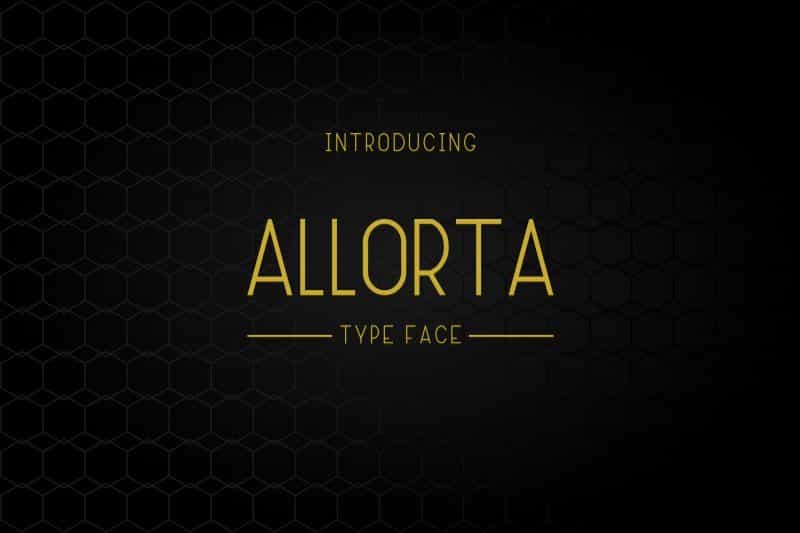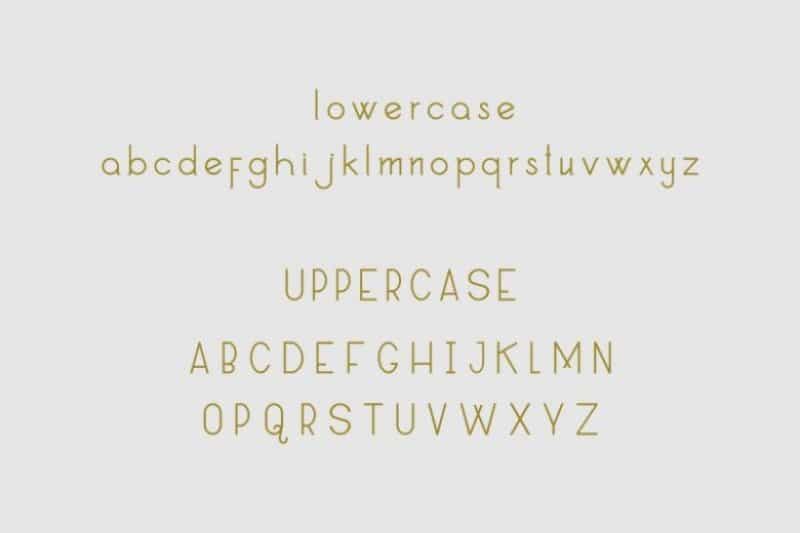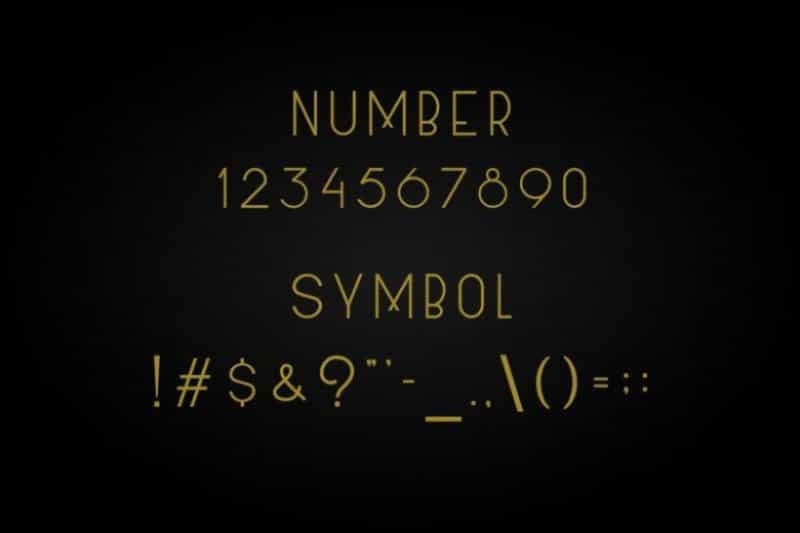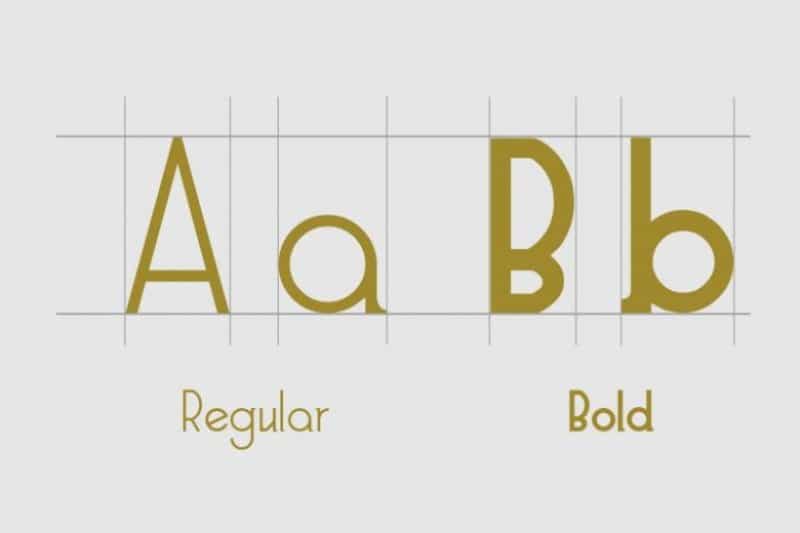
Hi Guys! Now we are at the last step and it is time to present our first Sans Serif Font. We name it “Allorta”. It’s made with love by our “fashion mode enthusiast” typeface designer: Lisna was the one who proposed it. This font will be AWESOME for any fashion, clothing, brands, as well as any stylish professional like: interior designer, hairstylist, architect, event organizer, wedding planner and publisher. Textile fans etc are also included in the list of people with such professions as well.